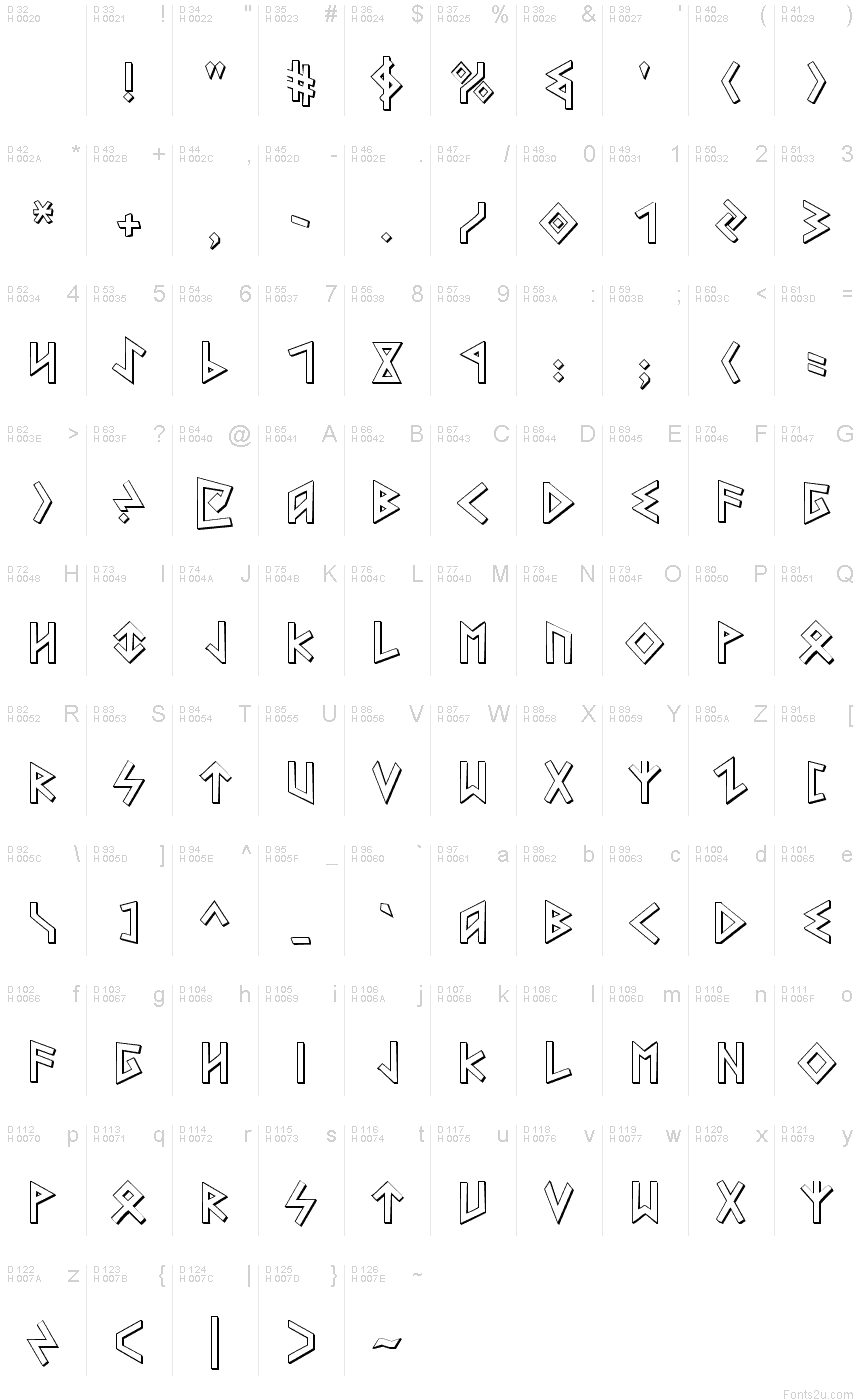
Heorot Shadow by Daniel Zadorozny of Iconian Fonts is a free outlined techno display font built from sharp, skeletal letterforms. Its angular strokes, diamond-shaped interiors, and offset shadow details give the capitals the look of cut metal signs or futuristic insignia.
The lettering is especially convincing for science-fiction game logos, where its hard geometry suggests machinery, armor, or an invented alphabet, and it also suits electronic music posters and arcade merchandise. The clearest audience is designers working in gaming and genre entertainment who want type to become part of the fictional world.